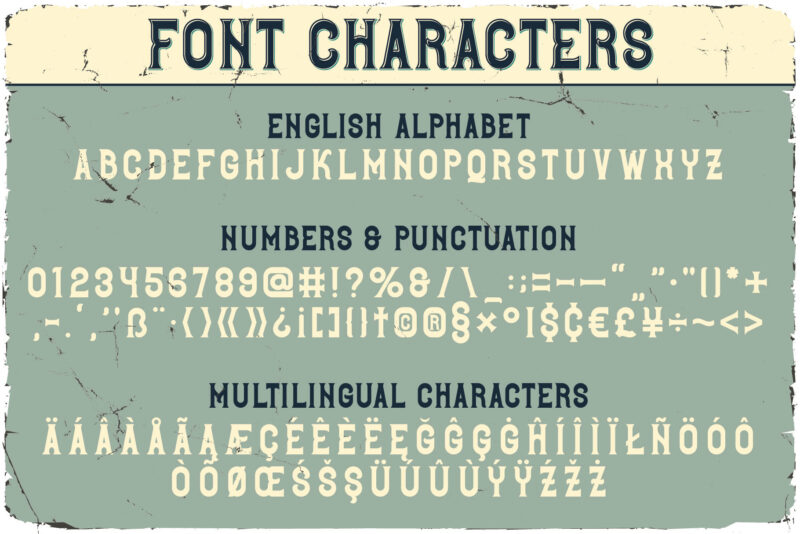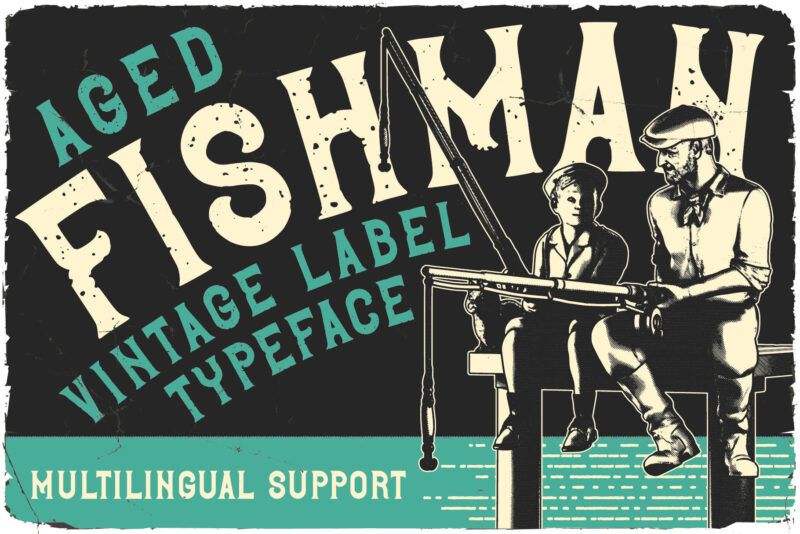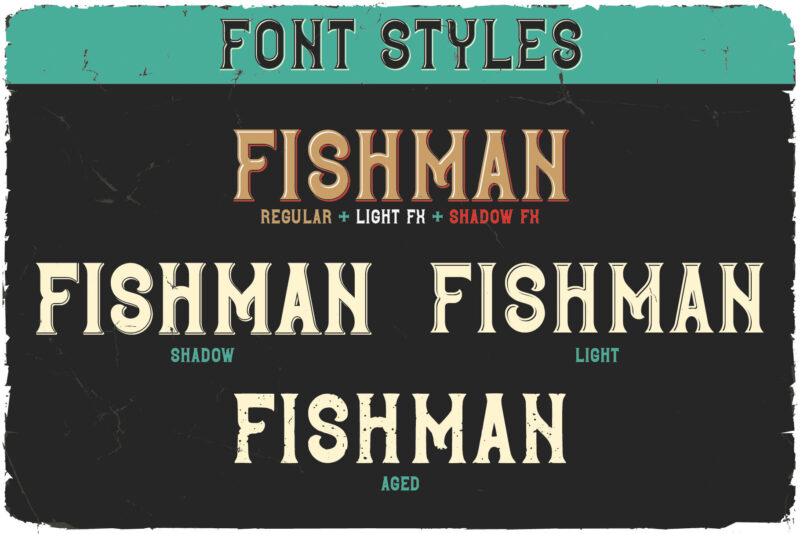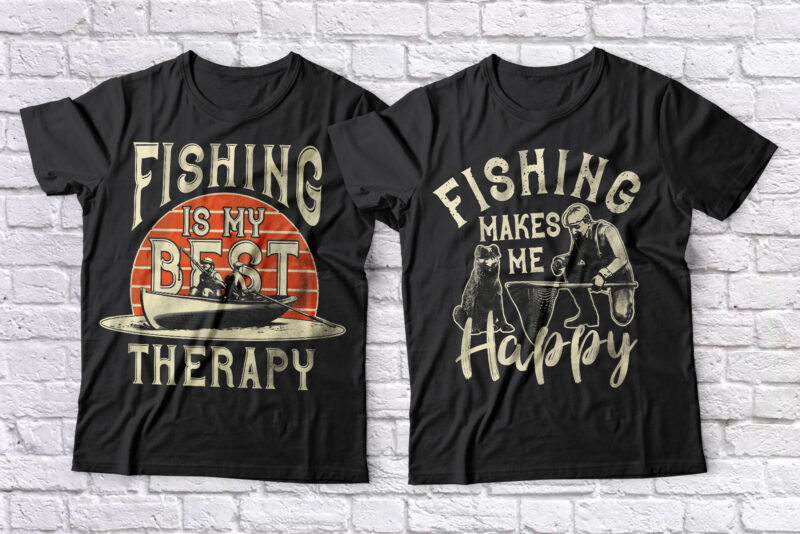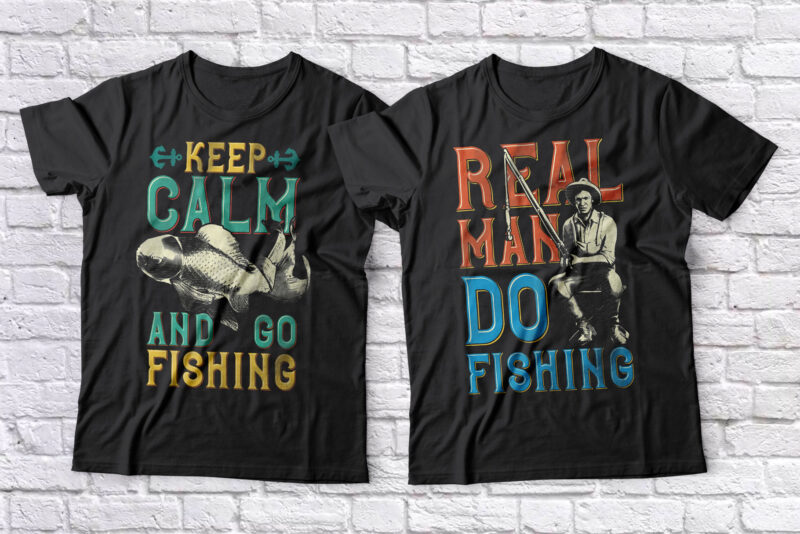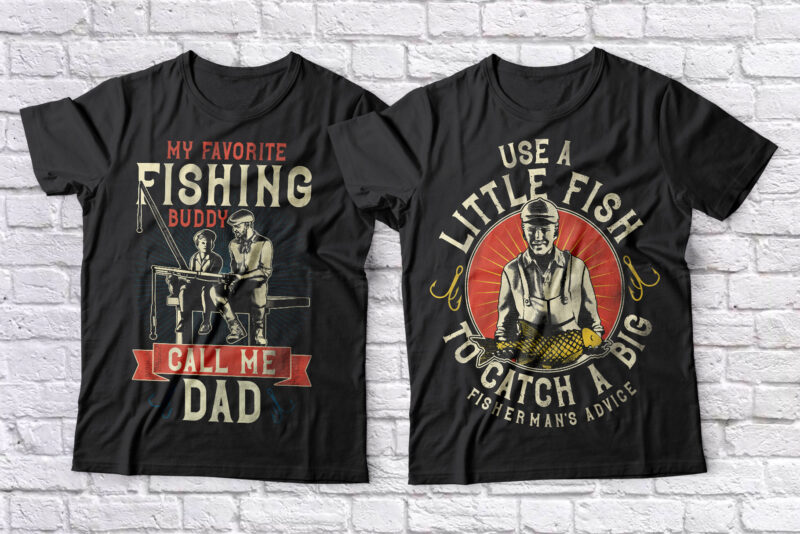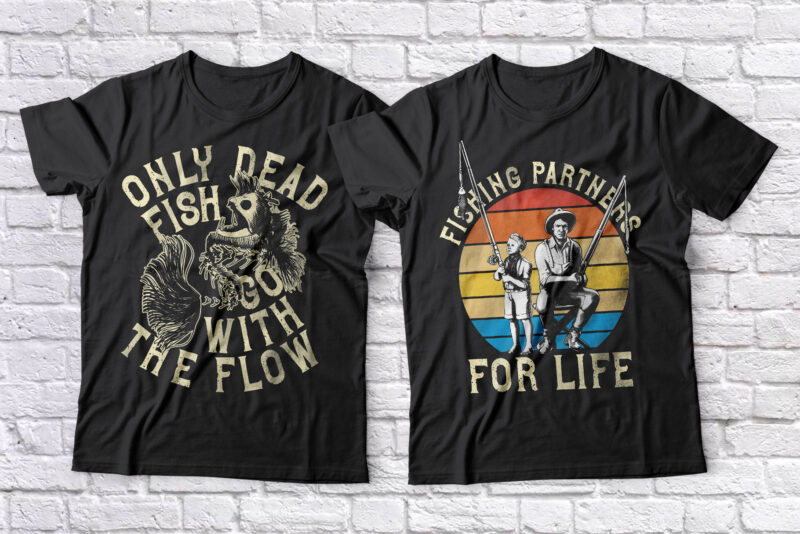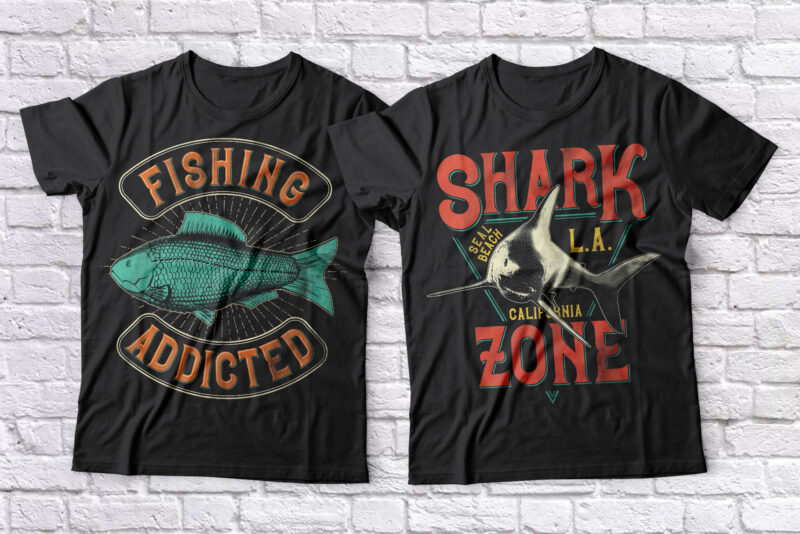
Fishman Layered Font and Editable T-shirt designs
Introducing vintage label font named Fishman. This font has a multilungual characters support (check out all available characters on previews). The font family has seven styles: Regular, Full, Shadow, Light, Shadow FX, Light FX, Aged. This font will look good on any vintage styled designs like a poster, T-shirt, label, logo, etc.
Features:
• A lot of additional symbols and multilingual support.